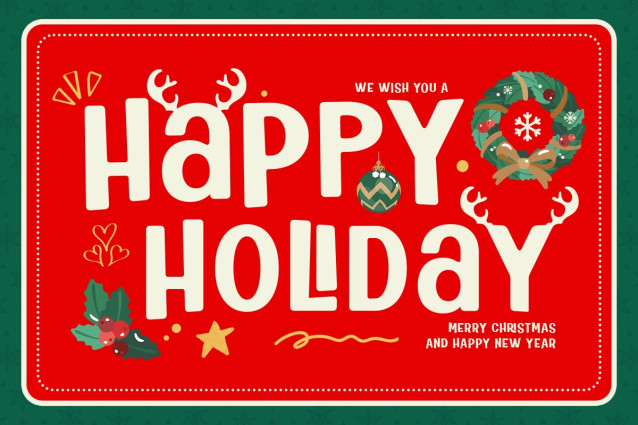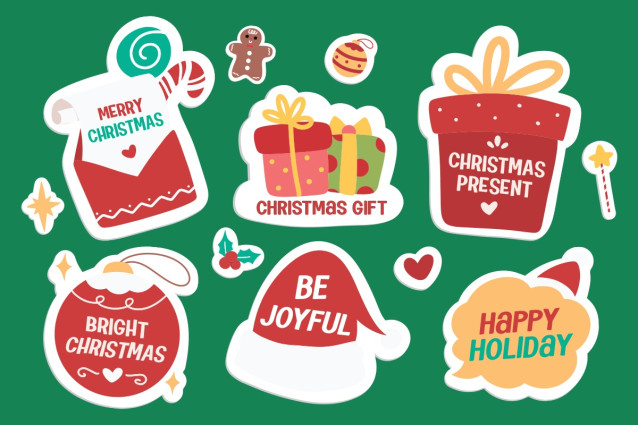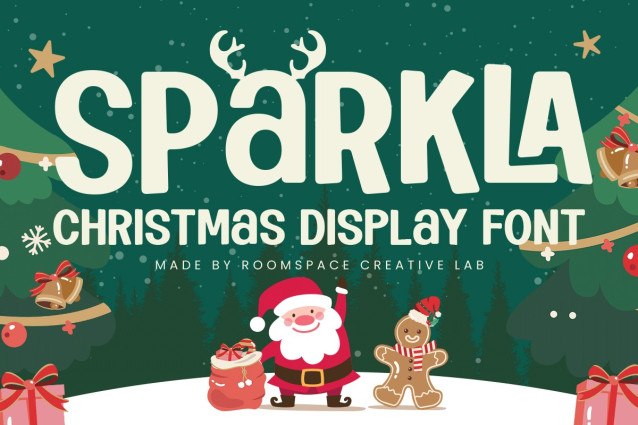
Sparkla Font
Sparkla Font is your new go-to Christmas display font for all things festive and joyful. Designed with cute rounded shapes and holiday-inspired charm, Sparkla brings warmth and excitement to every design. Whether you’re creating Christmas cards, gift tags, children’s book titles, holiday packaging, or social media graphics, Sparkla helps your message shine with cheerful energy.